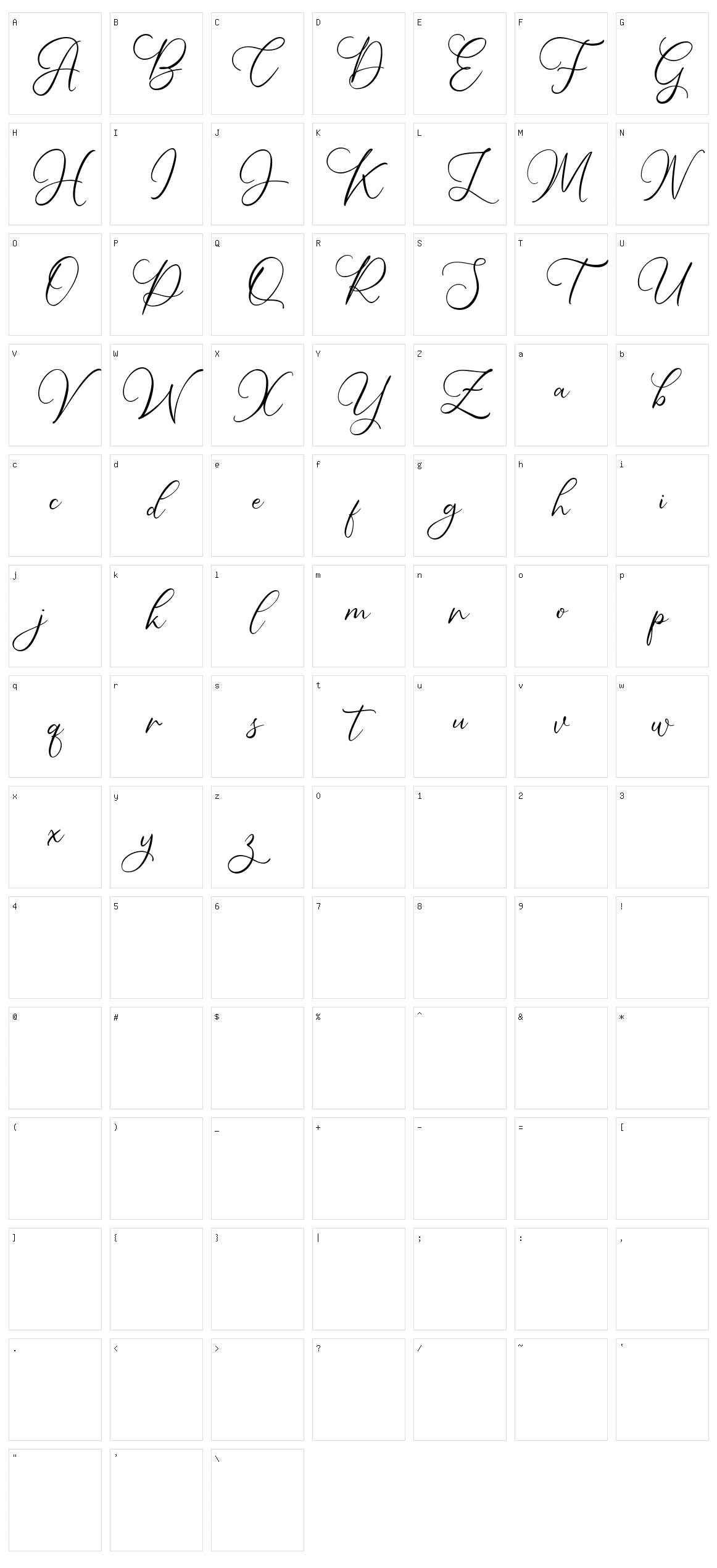
The free font Handy Dandy is carefully designed by Vunira Design, showcasing a thoughtful balance of creativity and usability and falls under the Script font style. When you download the ZIP file, it contains only 48.5 KB of font files, making it lightweight and quick to download. Please review the license details below to understand permitted usage and distribution rights. If license information is not available, we recommend using this font for personal projects only or contacting the author directly for commercial usage permissions.